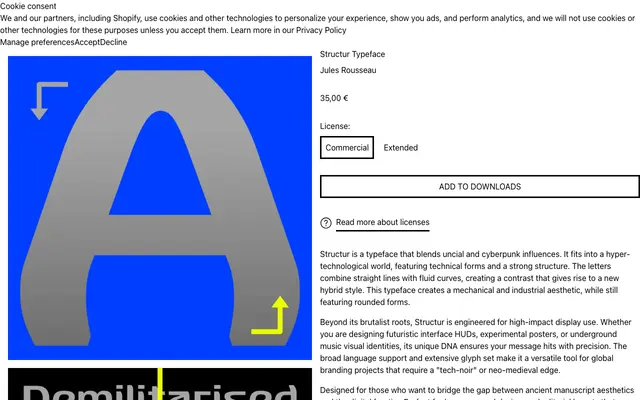
Structur Typeface
A single-weight display face by Jules Rousseau that fuses uncial manuscript forms with a cyberpunk industrial aesthetic.
Straight technical lines meet rounded, fluid curves throughout the 379-glyph character set, producing what the designer calls a mechanical yet neo-medieval hybrid. The Latin European coverage, including diacritics and ligatures, makes it workable across European branding and editorial projects. It sits squarely in high-impact display territory: logos, poster work, underground music identities, and futuristic interface graphics.
A display typeface blending uncial letterforms with cyberpunk and industrial aesthetics; its mix of straight technical lines and rounded curves places it firmly in the display category rather than any classical type genre.